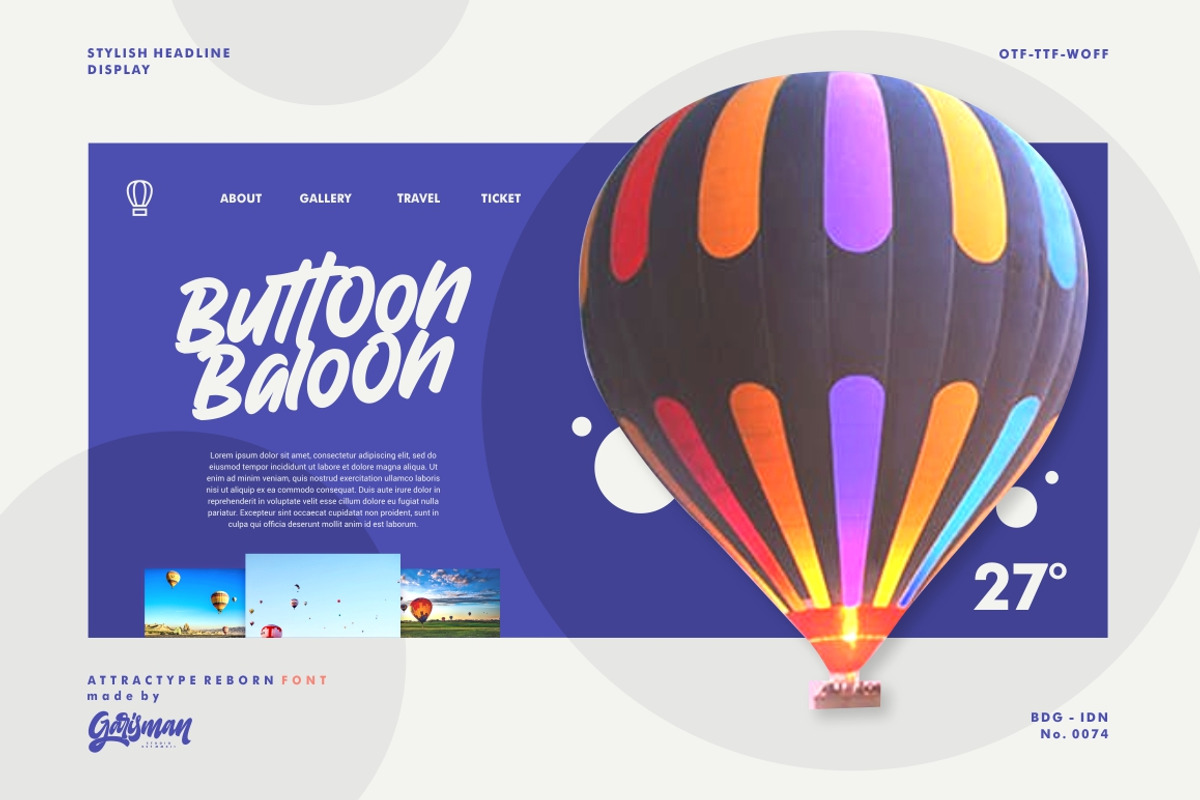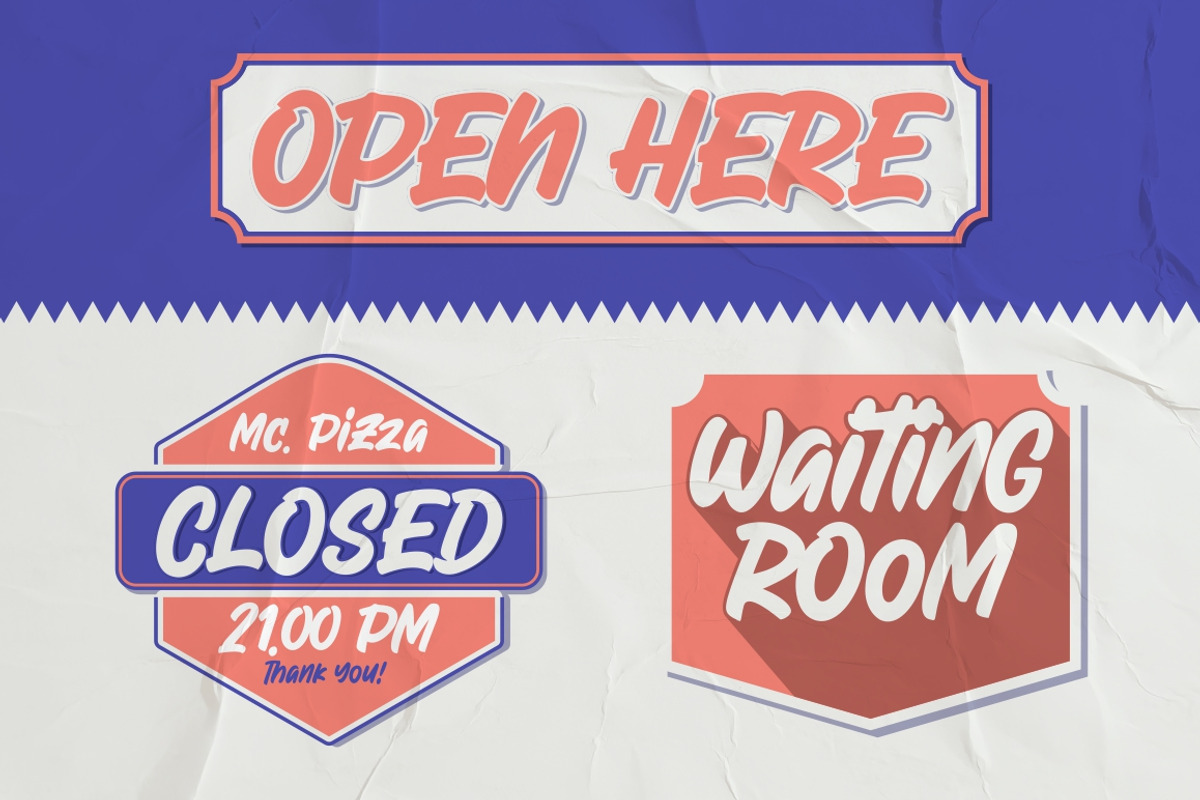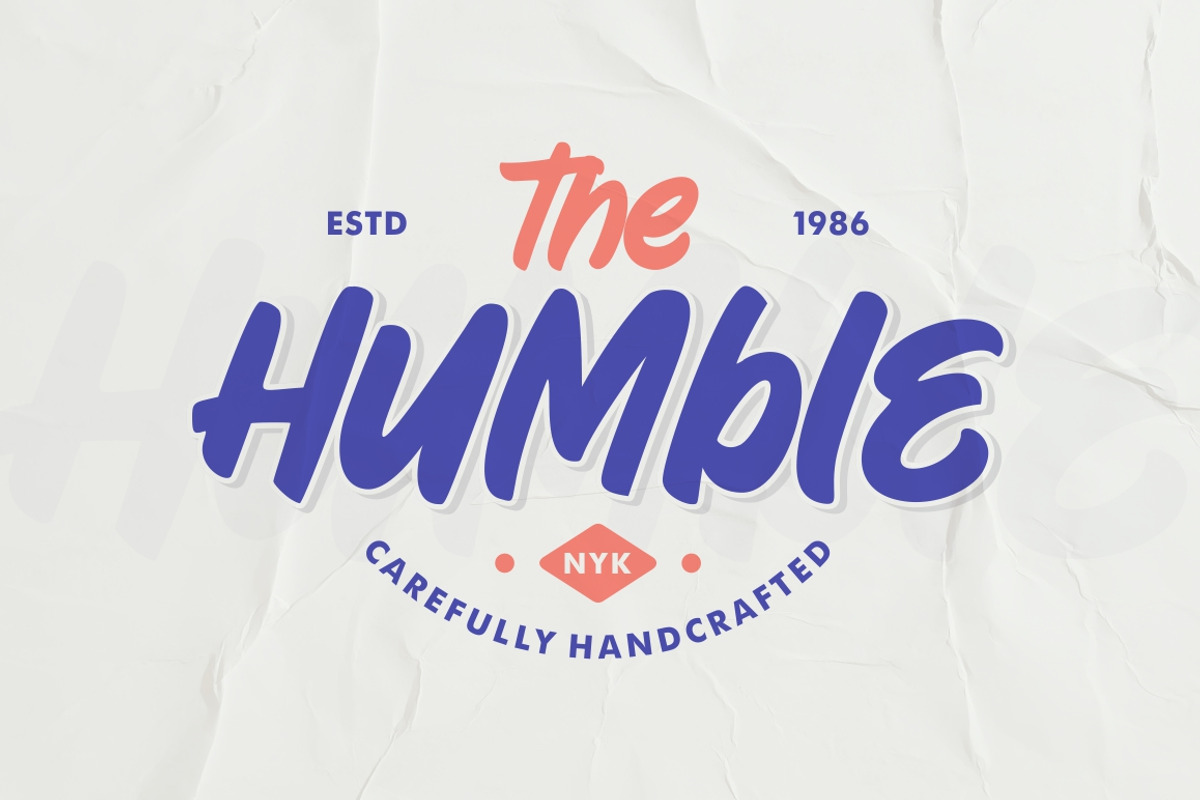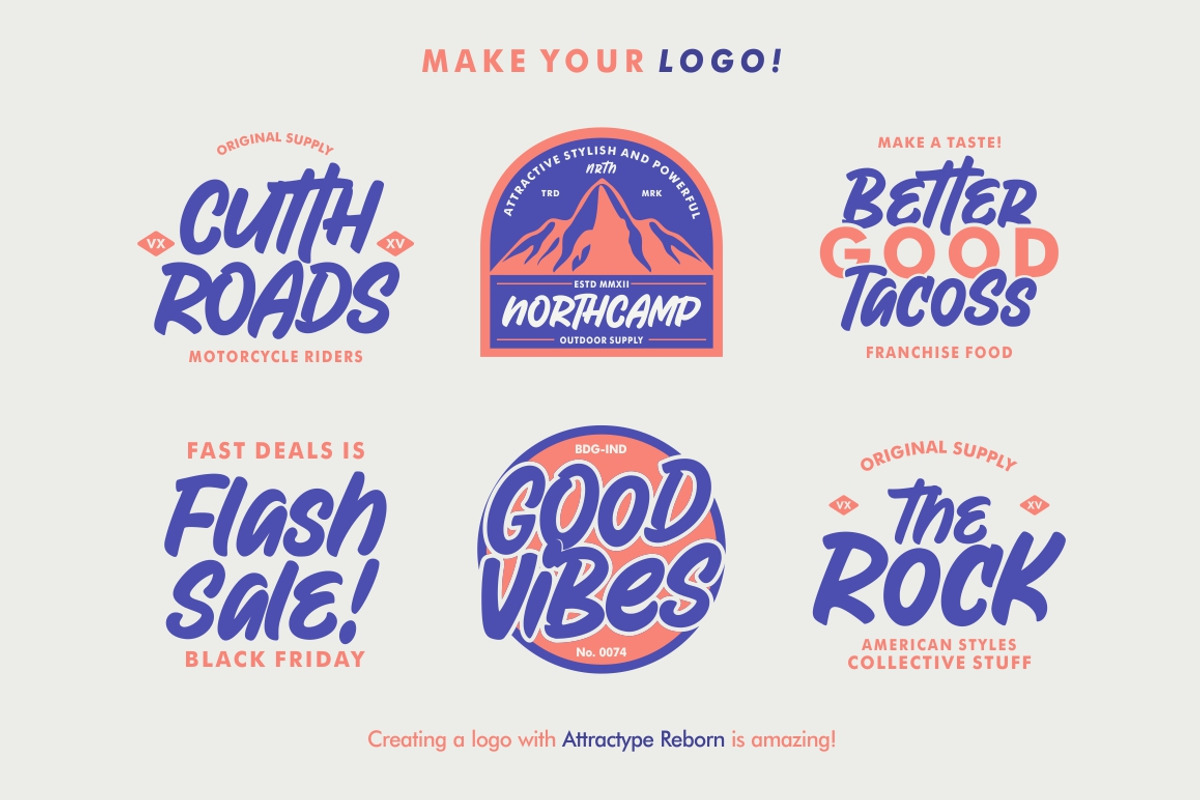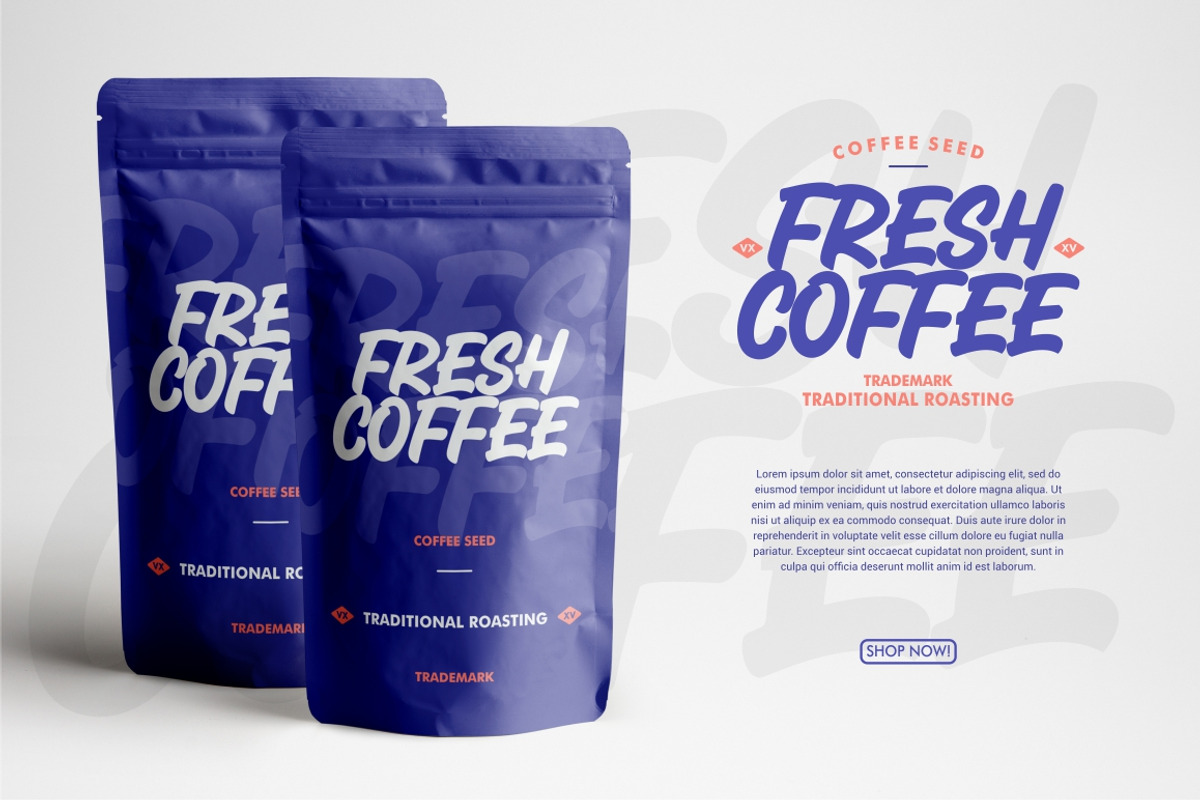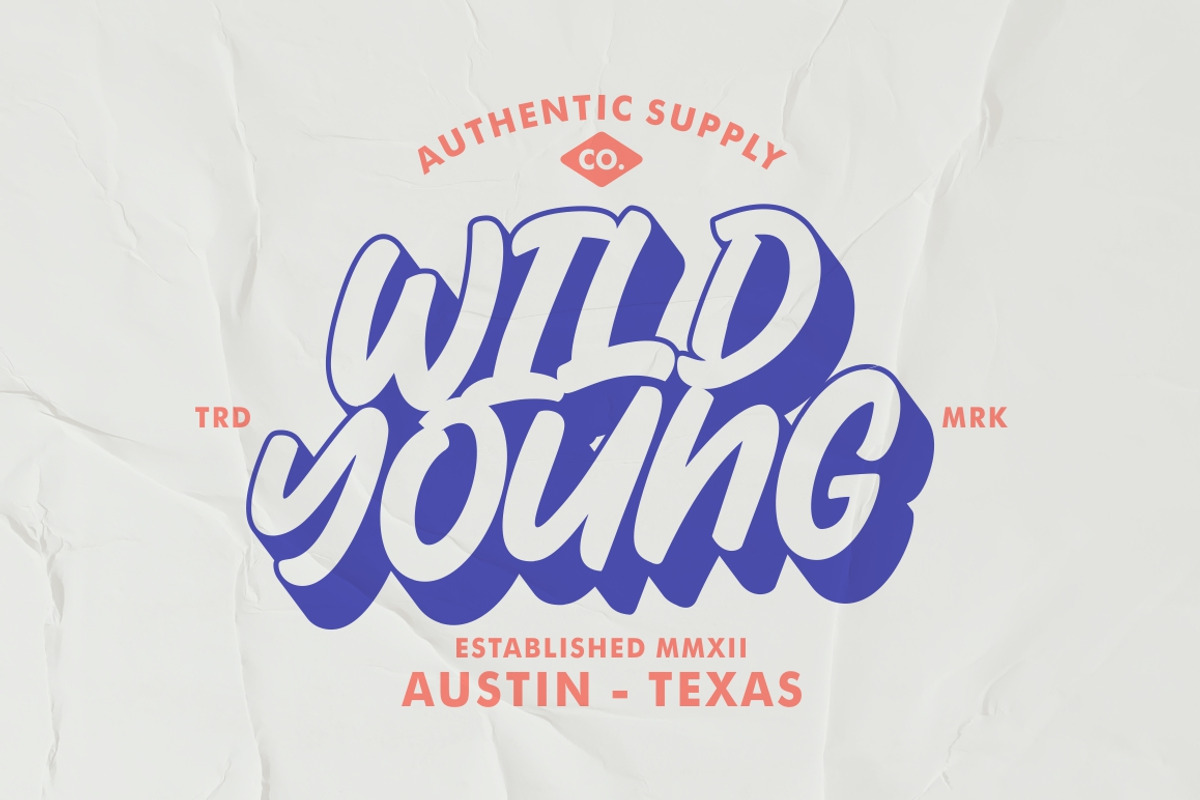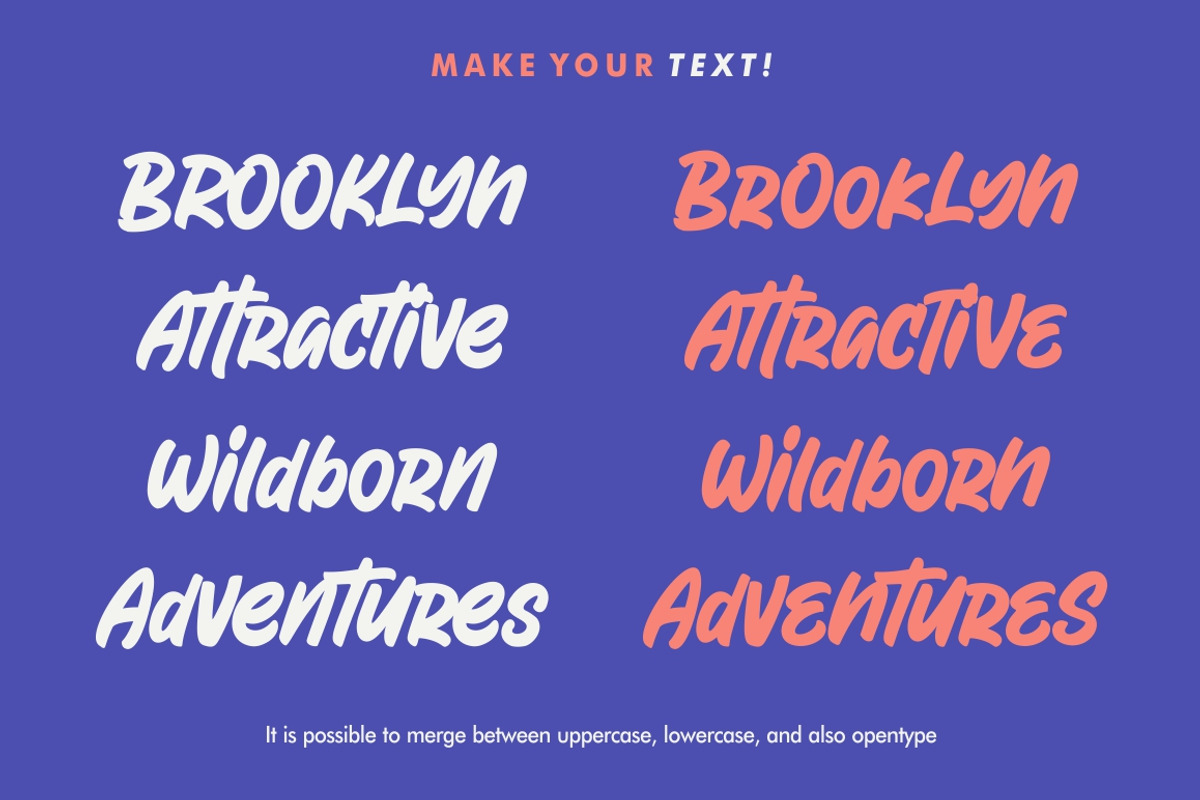
Attractype Reborn - Stylish Font
Introducing Attractype Reborn - Stylish Display Font
Attractype Reborn combines attractive curves with a fresh urban edge; delivering a stylish script which is guaranteed to add an eye-catching appeal to your logo designs, brand imagery, quotes, product packaging, merchandise & social media posts
Uppercase & Lowercase letters
Why Attractype Reborn - Stylish Font is worth a look
Attractype Reborn - Stylish Font by Garisman Std fits naturally into Branding, posters, packaging, typography.